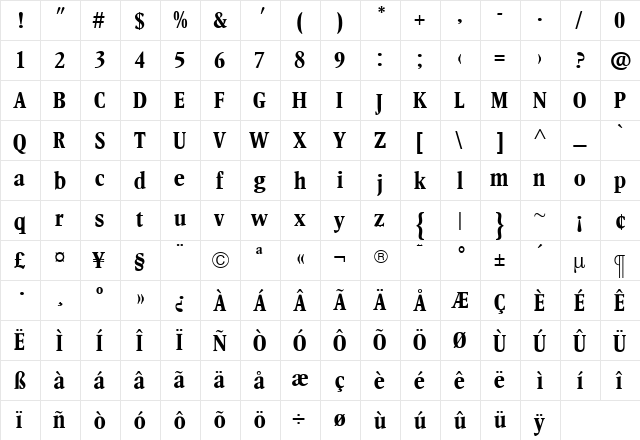
LeightonBoldCond Roman
Design Context for LeightonBoldCond Typeface
LeightonBoldCond offers clean, dependable letterforms without strong stylistic allegiance, making it a practical choice for designers who need flexibility. Its bold stroke weight gives it real presence on the page. Its narrow stance lets it pack a punch even in space-constrained designs.